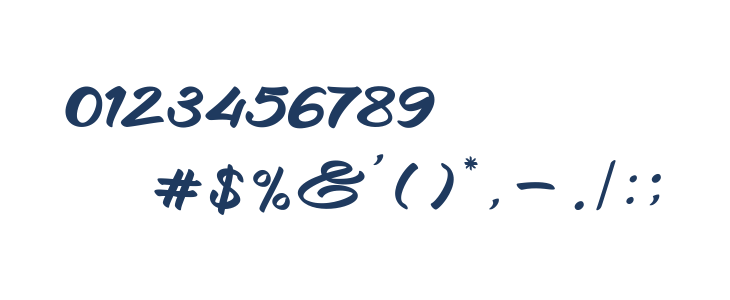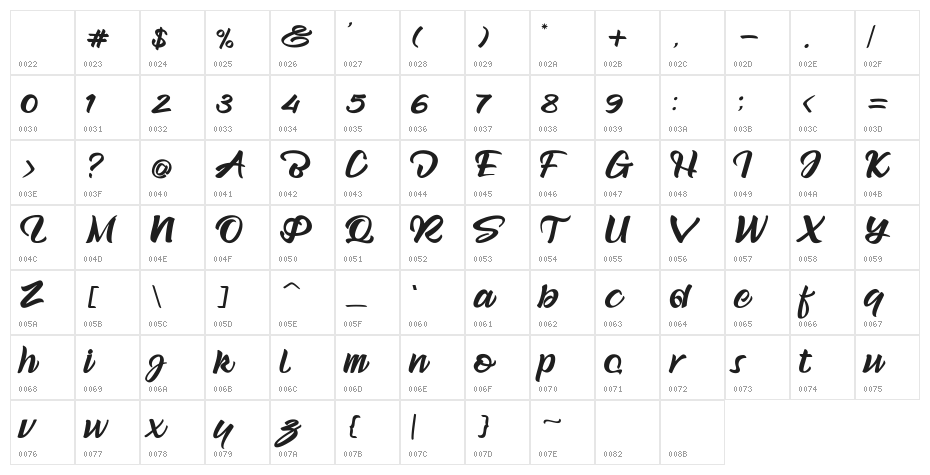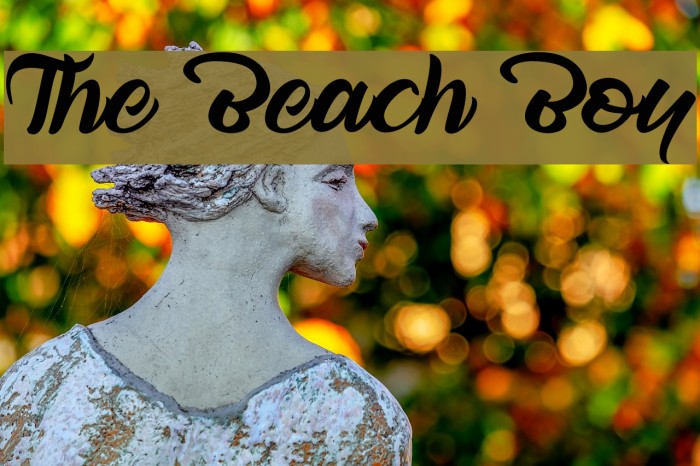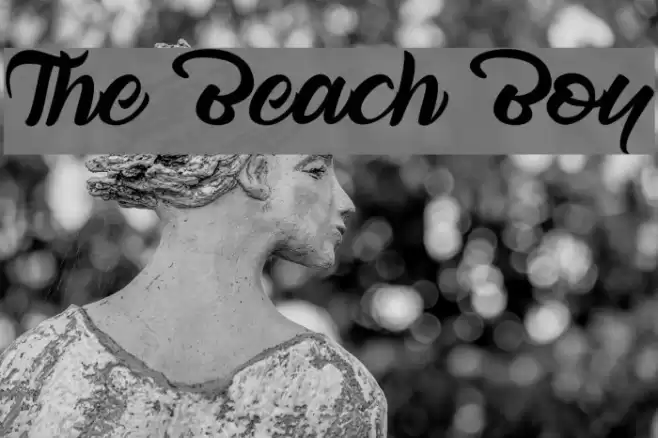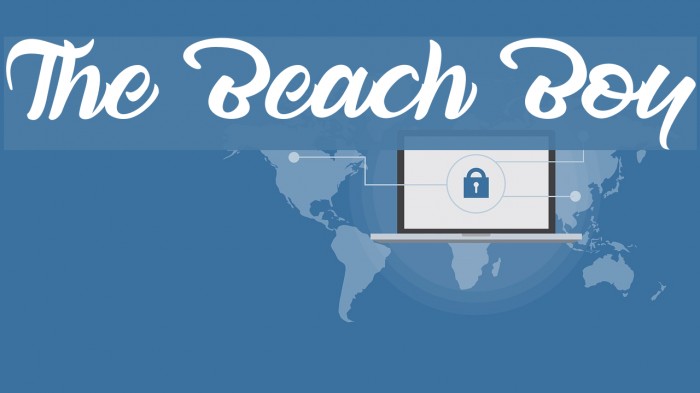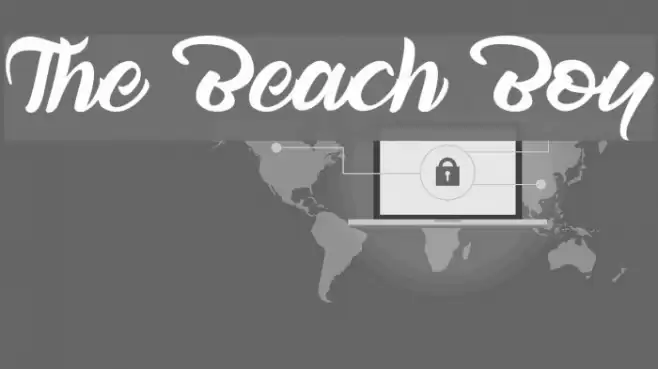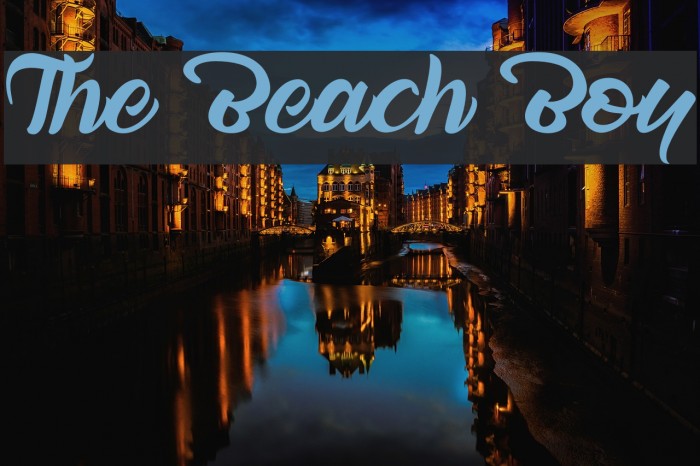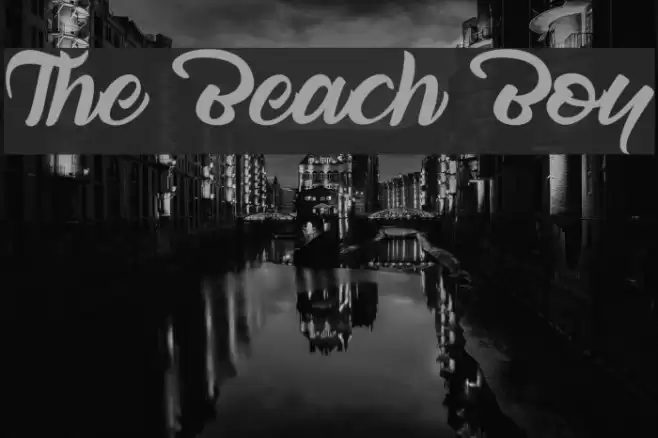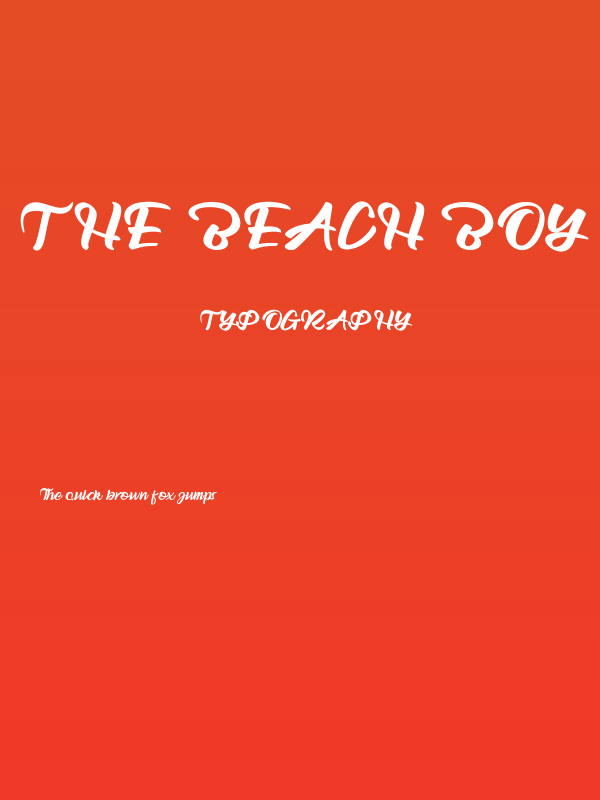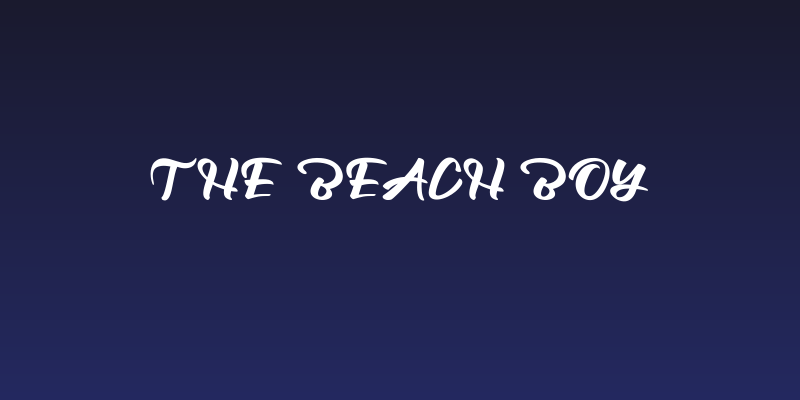
The Beach Boy Font
The Beach Boy Description
This font features a bold, flowing script style that exudes a sense of elegance and fluidity. The characters are interconnected with smooth, sweeping curves, giving it a handwritten appearance. The uppercase letters are slightly more ornate, with flourishes that enhance their decorative appeal. The lowercase letters maintain a consistent flow, making them easy to read while retaining a stylish flair. Numbers and special characters are designed to match the overall aesthetic, ensuring a cohesive look across all text. The font's bold weight and medium contrast in stroke thickness contribute to its strong visual impact, making it suitable for various creative applications.